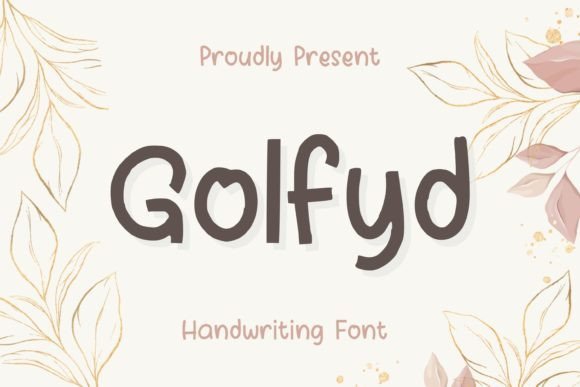
Meet Your New Favorite Font: Golfyd Font
Have you ever been working on a project and suddenly, the right font pops up, and it’s like a creative lightbulb goes off in your head? That’s exactly what happened to me when I discovered the Golfyd Font. This friendly and casual handwritten font has become my go-to choice for all sorts of creative projects, from crafting to digital design.
The Golfyd Font is perfect for anyone looking to add a personal touch to their designs. Whether you’re creating greeting cards, presentations, or even just a simple social media post, this font has the potential to make your project stand out. And the best part? It’s incredibly versatile, making it a valuable addition to any designer’s toolkit.
Golfyd Font Key Features
- Font Family: Golfyd Font is a unique, modern sans-serif font designed for digital use.
- Unique Characteristics: Golfyd Font features a distinctive, rounded design with subtle rounded corners and a clean, minimalist aesthetic, making it perfect for modern branding and digital design.
Golfyd Font Review
I recently had the chance to work with the Golfyd font, and I must say it’s a unique addition to any design project. ✨ One of the things that stands out about this font is its versatility. It’s perfect for use in titles and headings, and its modern aesthetic makes it a great choice for any design that needs a touch of sophistication.
The font also has a wide range of characters, including ligatures and swashes, which can be used to add a touch of elegance to any design. ✨ Additionally, the font’s weight range is well-suited for use in both digital and print designs.
- ⚠️ Not ideal for body text: While the font is great for titles and headings, it may be difficult to read in large blocks of body text.
Overall, I’m impressed with the Golfyd font’s unique style and versatility. While it may have some limitations, it’s a great choice for designers looking to add a touch of sophistication to their projects.
Tips for Getting the Most Out of Golfyd Font
To get the most out of Golfyd Font, use it for creative and playful designs. It pairs well with bold and bright colors. Use it for headings, titles, or short text blocks to add a touch of whimsy to your design.
Golfyd Font is commonly used for:
– Infographics
– Blog titles and headings
– Marketing materials
– Children’s book illustrations